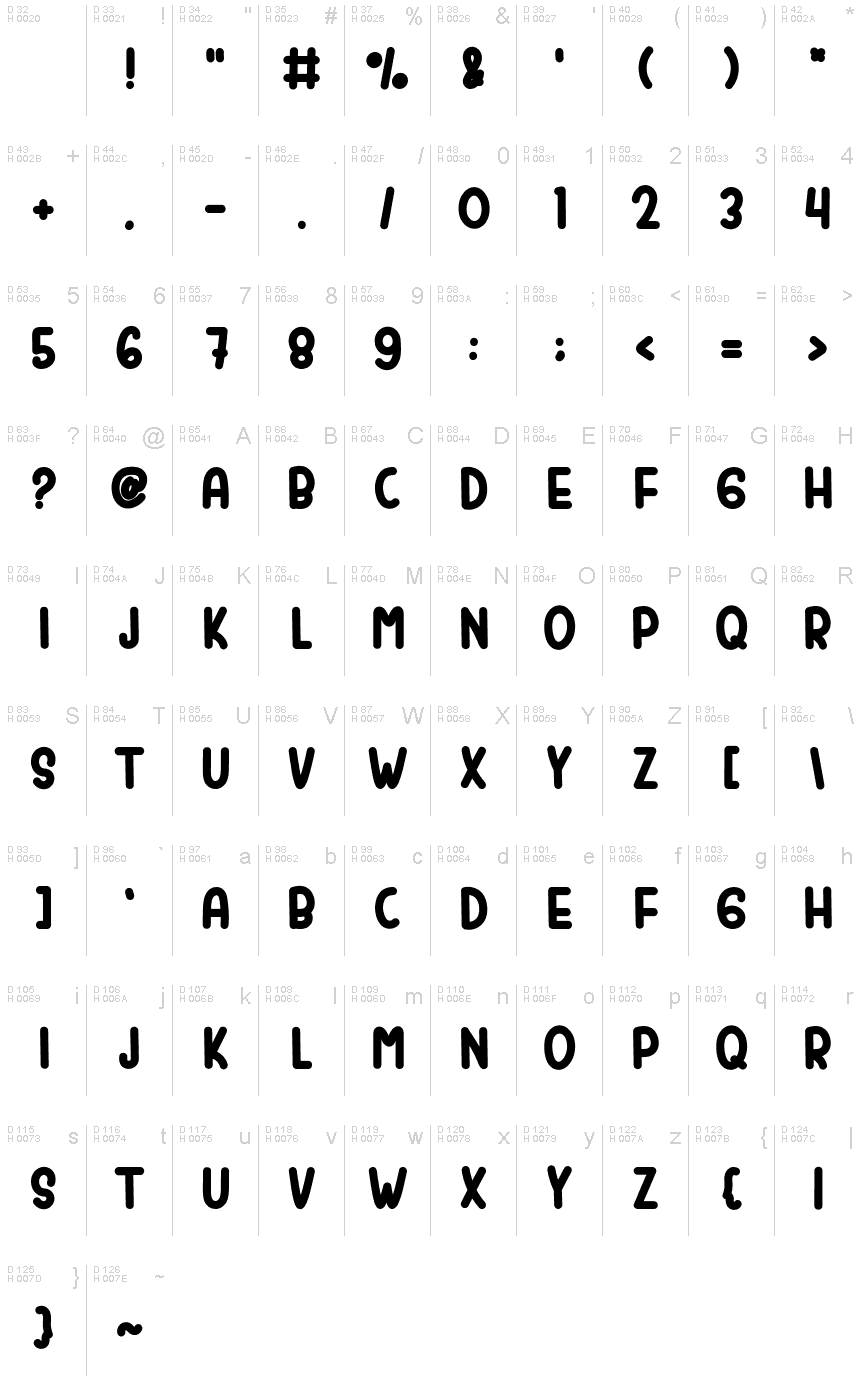
Cat Boys
Introducing Cat Boys, a bold and condensed display font designed by Hamsah. With its playful cartoon style, this font is perfect for projects that require a touch of fun and whimsy. Use it on children's book covers, party invitations, or even on packaging for cat-themed products. Its bold weight ensures that your message will be seen loud and clear, while its condensed width allows you to fit more text into smaller spaces. Let Cat Boys bring a cheerful feline vibe to your next project!